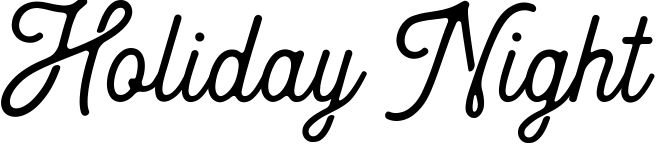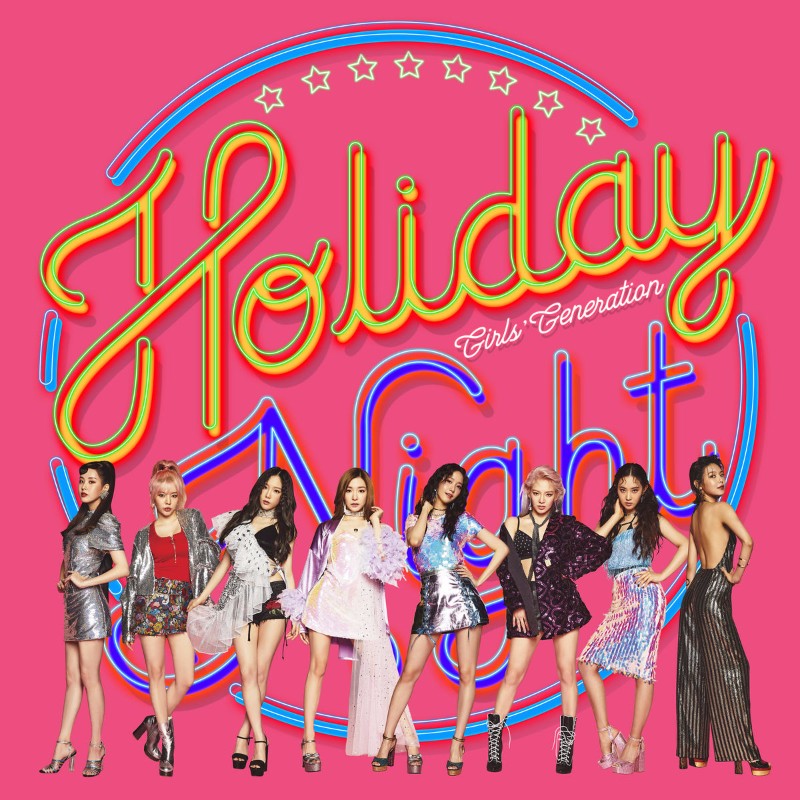
Holiday Night Font
Fonts in UseHoliday Night is the sixth Korean studio album by Girls' Generation, released in 2017. The album features 10 tracks, including the title tracks "Holiday" and "All Night".
The font employed for the album title on the cover resembles Heritage, a typeface designed by Dede Mulyadi that features graceful script lettering with multiple alternates, swashes, and ligatures. Additional information about Heritage can be found here.